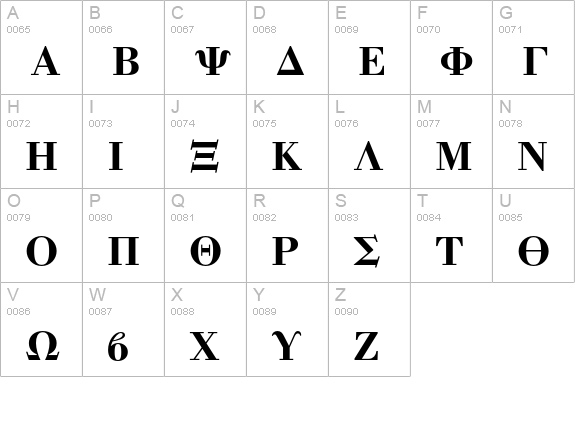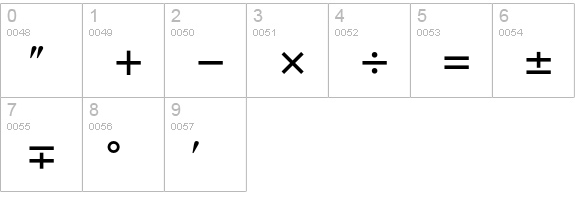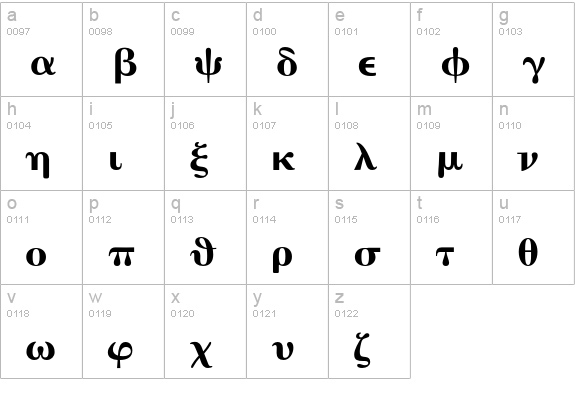
Mathematical Pi 4 Font Details
Introducing Mathematical Pi 4, a revolutionary font designed to enhance your mathematical and scientific documents with its clean and professional appearance. This font is meticulously crafted to ensure maximum legibility and precision, making it an indispensable tool for mathematicians, scientists, and educators alike. Featuring a sleek and modern design, Mathematical Pi 4 font seamlessly integrates mathematical symbols, equations, and formulas into your documents, making them visually appealing and easy to comprehend. With its comprehensive character set, this font offers a wide range of mathematical symbols, including Greek letters, operators, and special characters, empowering you to express complex mathematical concepts with ease. But what sets Mathematical Pi 4 apart is its accessibility – it is available for free download at FontsMarket.com. Yes, you read that right! This incredible font can be yours without any cost, allowing you to enhance your mathematical and scientific work without breaking the bank. Whether you're a student, researcher, or professional, Mathematical Pi 4 font is the perfect companion for all your mathematical and scientific endeavors. Its clear and concise design ensures that your equations and formulas are presented flawlessly, enabling you to focus on the content rather than worrying about visual inconsistencies. So why wait? Experience the power of Mathematical Pi 4 font today and take your mathematical and scientific documents to new heights of clarity and professionalism. Download it for free at FontsMarket.com and unlock a world of possibilities for your mathematical expressions.